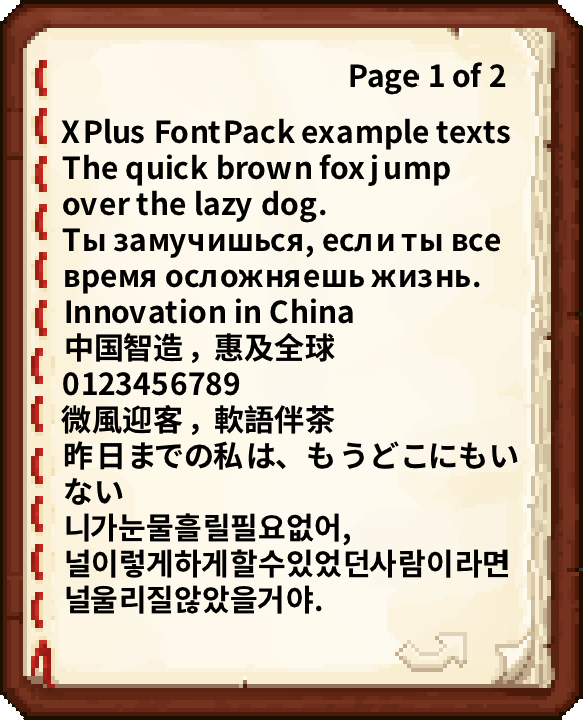
XPlus Font Pack
XPlus Font Pack — Smooth and Elegant In-Game Fonts
XPlus Font Pack is a Minecraft font collection developed by the XPlus Team, originally designed for the XPlus Modpack. It transforms the default game fonts into the sleek and modern Source Han Sans typeface. Say goodbye to plain default fonts and immerse yourself in a world of clarity and style.
Players enjoy seamless gaming across multiple languages as the pack supports a wide range of language characters. Whether communicating with friends in English, Korean, Russian, Chinese, or any other language—XPlus Font Pack ensures readability and consistency without requiring additional mod downloads.